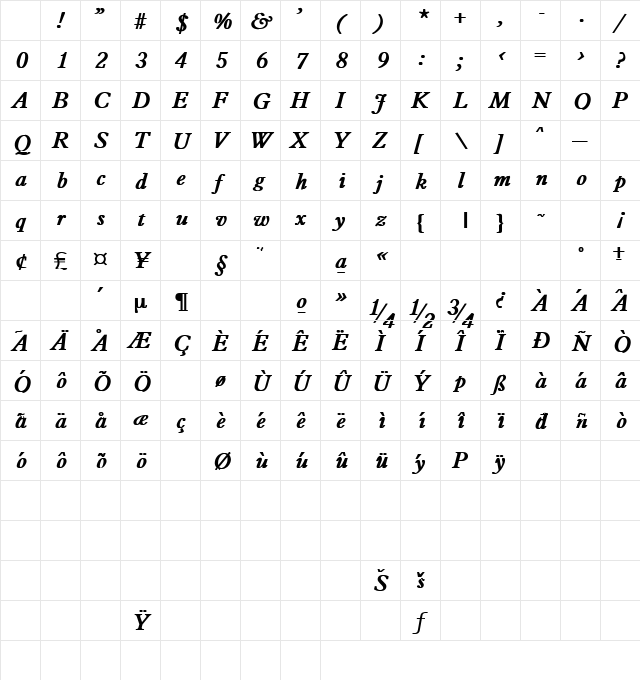
Waterloo is a composed and adaptable typeface that performs quietly and consistently across a wide range of design contexts. Its bold stroke weight gives it real presence on the page.